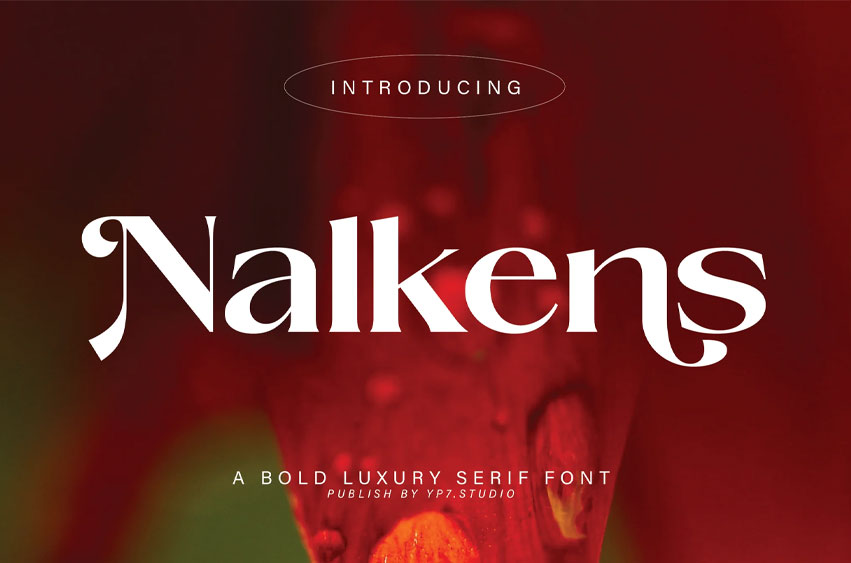
Nalkens Font
Nalkens Font Bold Luxury Serif. It is suitable for flyers, posters, novels, letterheads, or any design requirements you want to be awesome.
It will certainly amaze your readers.